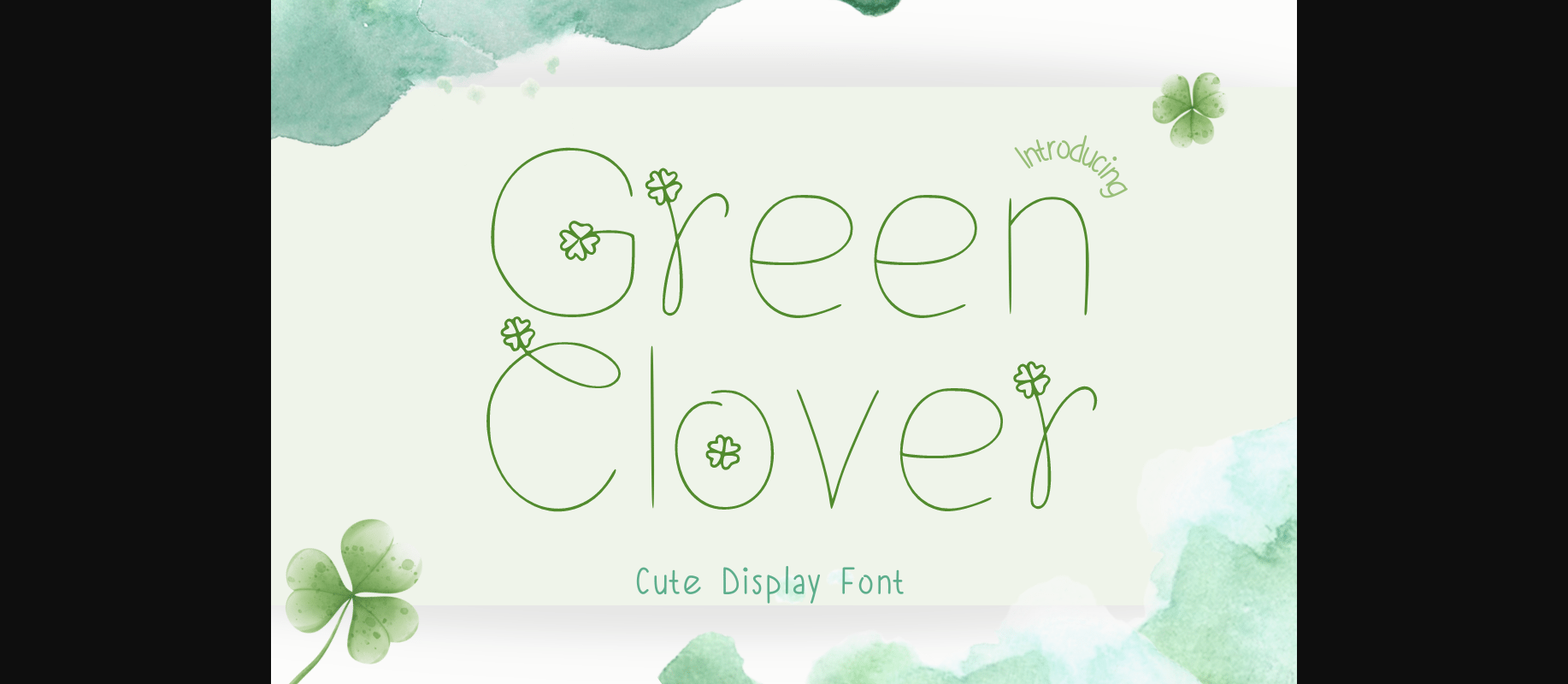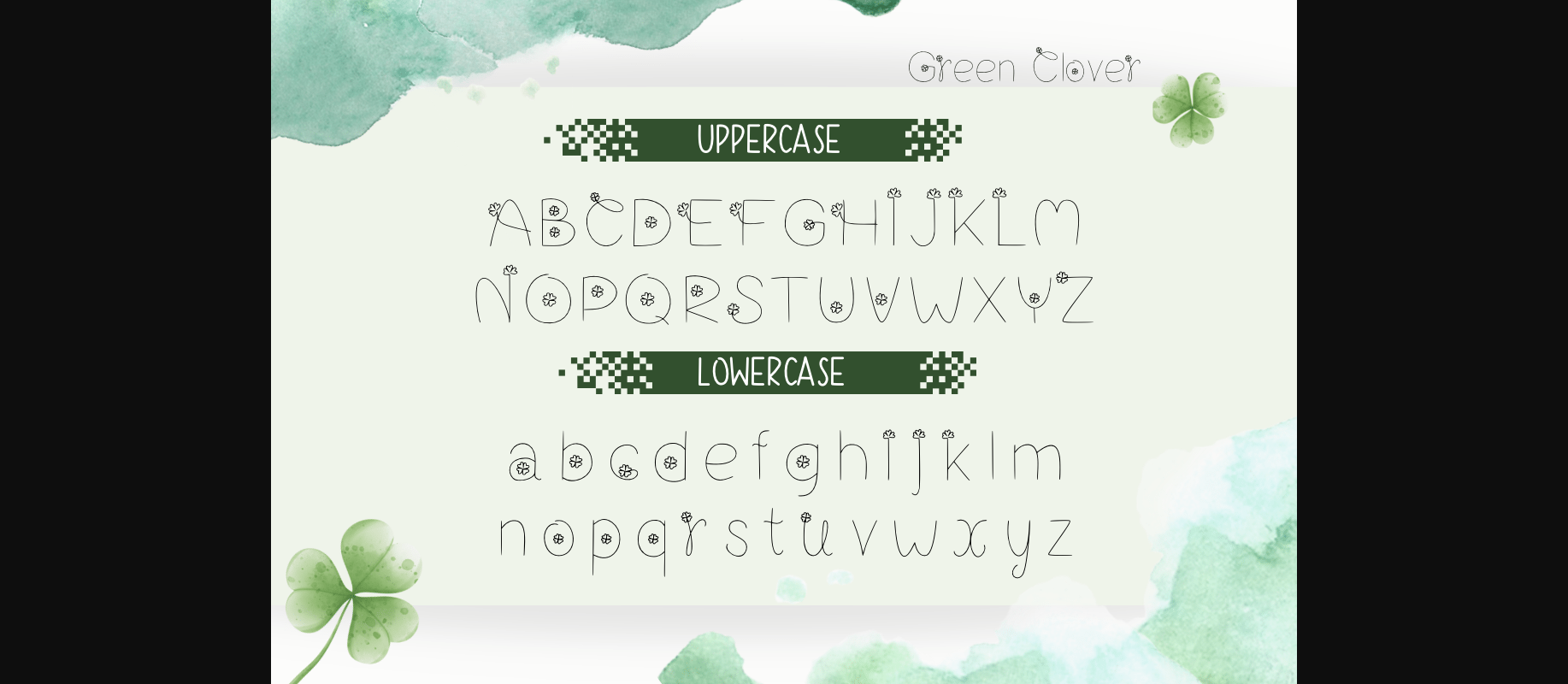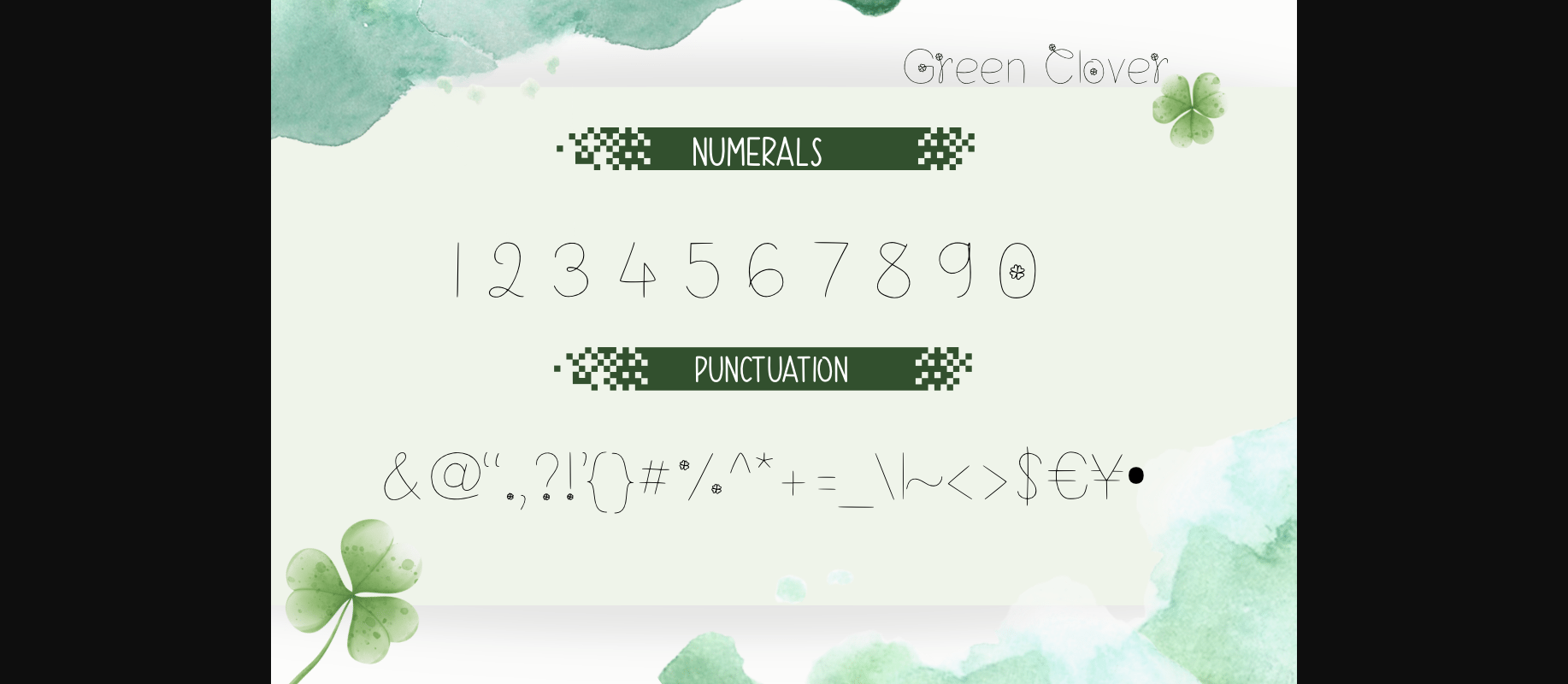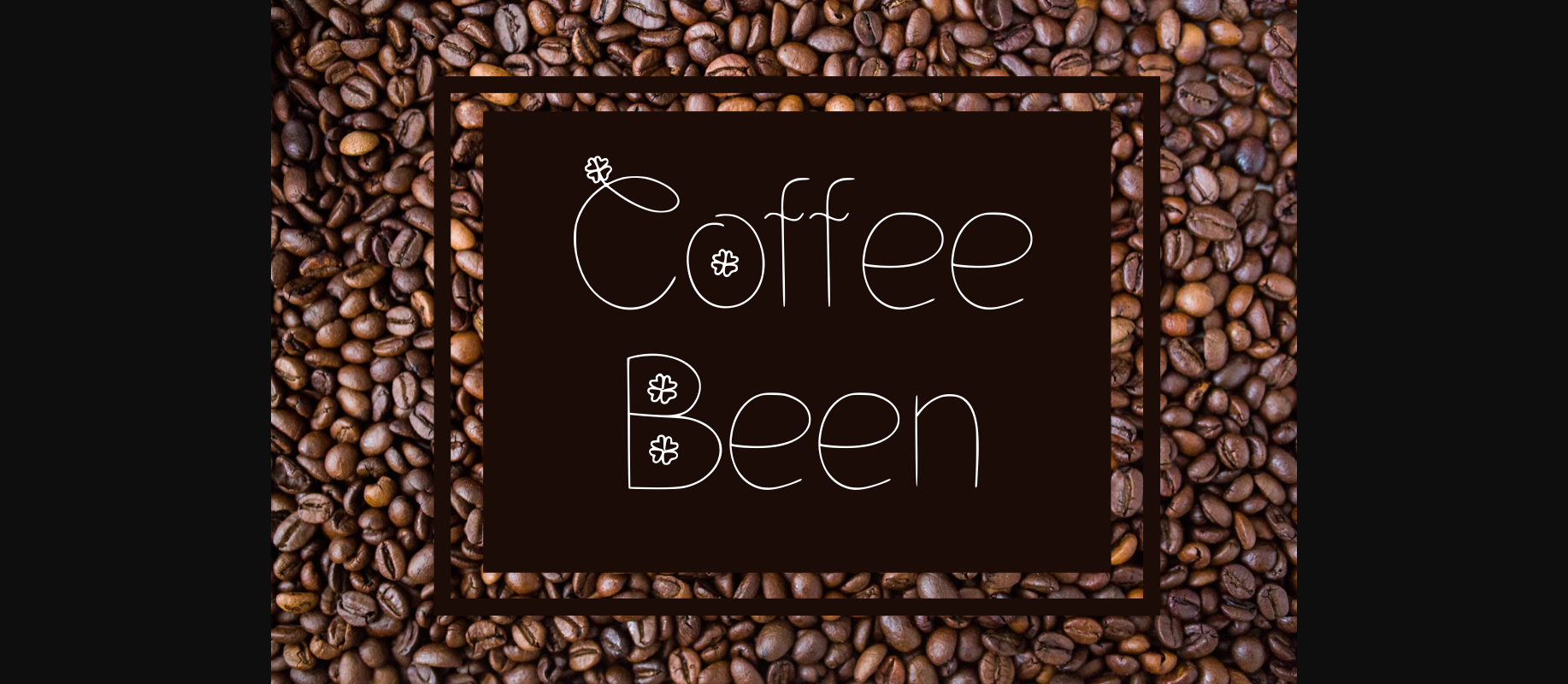
About Green Clover Font
Green Clover is an organic and beautiful decorative font. Used not only for St.Patrick’s Day this font will be an incredible asset to your fonts’ library, as it has the potential to elevate any creation. This font is PUA encoded which means you can access all of the amazing glyphs and ligatures with ease!